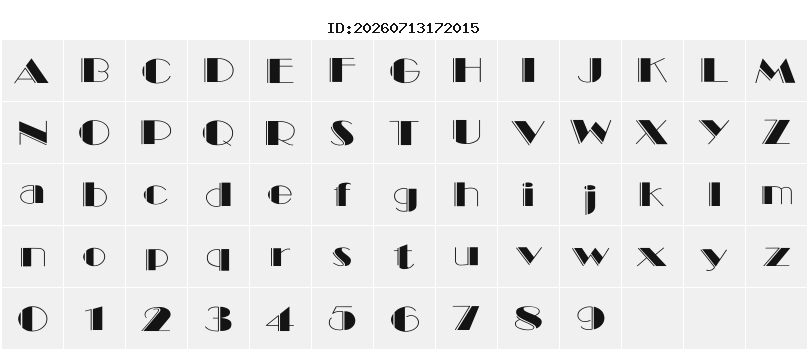
About BalletEngraved Wide.ttf
BalletEngraved Wide.ttf is a modern, elegant sans-serif font designed for ultimate readability and visual harmony. Perfect for branding, headlines, web design, and print materials.